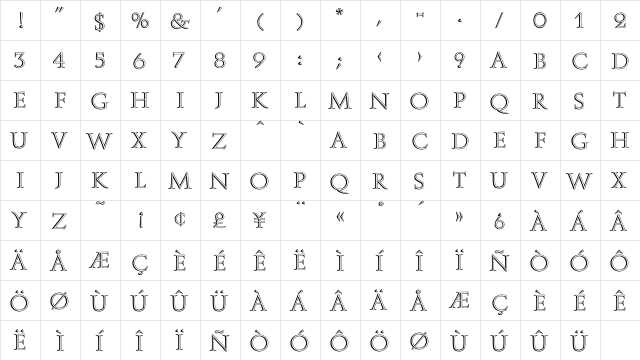
Augustea Open Regular Font Preview
Augustea Open Regular
Design Context for Augustea Open Typeface
Augustea Open takes a measured approach to typography — its balanced proportions and neutral character make it a reliable workhorse for both digital and print work.